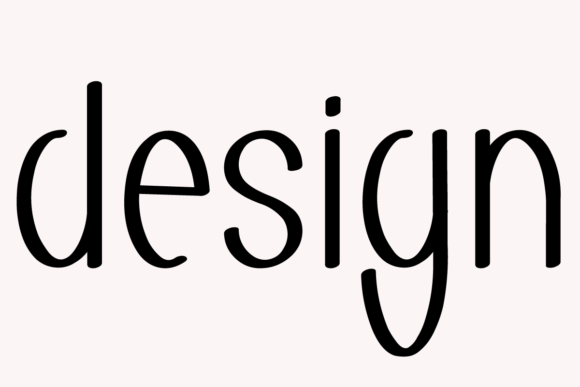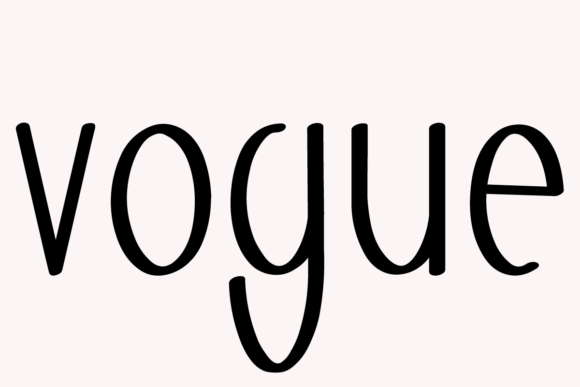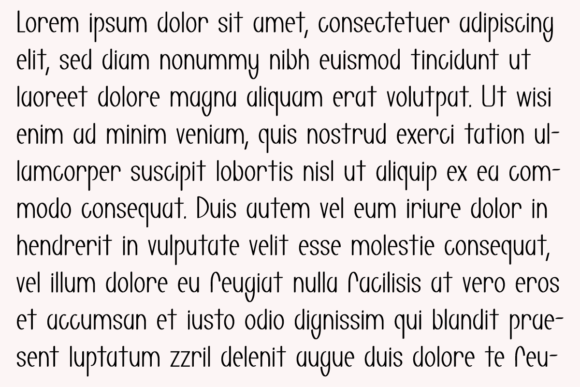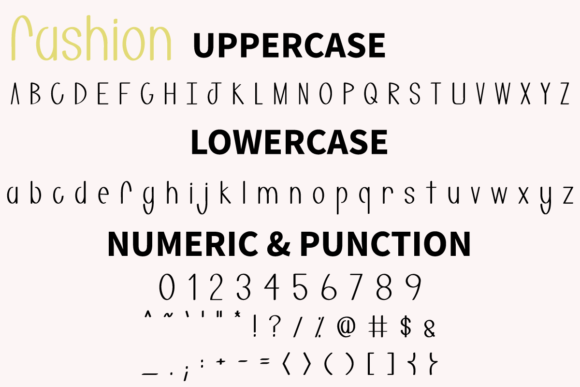
Fashion Font: Elevate Your Designs with a Whimsical and Friendly Handwritten Style
Are you tired of using the same old fonts in your designs? Do you want to add a touch of personality and whimsy to your projects? Look no further than the Fashion Font, a simple and friendly handwritten font that’s perfect for designers and crafters alike. In this article, we’ll explore the features and benefits of the Fashion Font, and show you how to make the most of this versatile typeface.
What is Fashion Font?
Fashion Font is a beautiful, handwritten typeface that’s designed to bring a touch of elegance and sophistication to your designs. With its whimsical and quirky style, this font is perfect for adding a personal touch to your projects. Whether you’re creating logos, wedding invitations, quotes, advertisements, or print materials, Fashion Font is the perfect choice.
Key Features of Fashion Font
- Whimsical and quirky style: Fashion Font has a unique and playful style that’s sure to make your designs stand out.
- Simple and friendly: Despite its elegant appearance, Fashion Font is incredibly easy to read and use.
- Versatile: This font is perfect for a wide range of design projects, from logos and wedding invitations to quotes and advertisements.
- High-quality: Fashion Font is a high-quality typeface that’s designed to deliver exceptional results.
Benefits of Using Fashion Font
So why should you choose Fashion Font for your designs? Here are just a few benefits of using this amazing typeface:
- Add a personal touch: With Fashion Font, you can add a personal touch to your designs and make them stand out from the crowd.
- Easy to use: This font is incredibly easy to use, even for designers who are new to typography.
- Perfect for a wide range of projects: Whether you’re creating print materials, digital content, or social media graphics, Fashion Font is the perfect choice.
- Time-saving: With Fashion Font, you can create stunning designs in no time, saving you time and effort.
How to Use Fashion Font
Using Fashion Font is incredibly easy. Here are a few tips to get you started:
- Pair it with other fonts: Fashion Font looks great when paired with other fonts, such as sans-serif or serif fonts.
- Experiment with different sizes: Try using Fashion Font in different sizes to create visual interest and hierarchy.
- Use it for headings and titles: Fashion Font is perfect for headings and titles, where you want to make a bold statement.
- Add a pop of color: Use Fashion Font in a bold, bright color to add a pop of personality to your designs.
Fashion Font is perfect for designers and crafters alike. Whether you’re creating professional designs or handmade crafts, this font is sure to elevate your projects. Here are a few ways you can use Fashion Font:
- Logos and branding: Use Fashion Font to create a unique and memorable logo for your business or brand.
- Wedding invitations and stationery: Add a touch of elegance and sophistication to your wedding invitations and stationery.
- Print materials: Use Fashion Font in your print materials, such as brochures, flyers, and posters.
- Digital content: Add a personal touch to your digital content, such as social media graphics and blog posts.
| Font Name | Fashion Font |
| Author | Woracado |